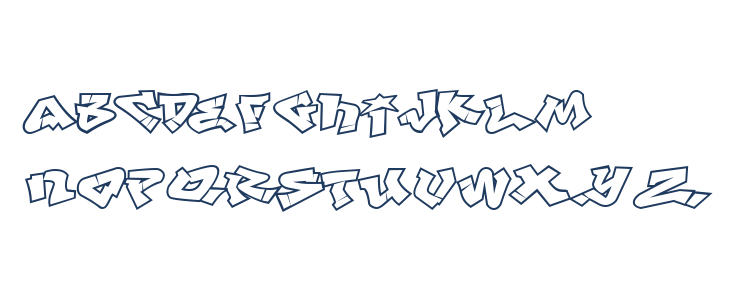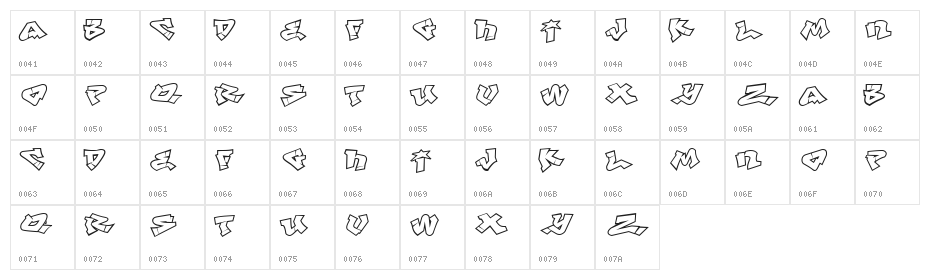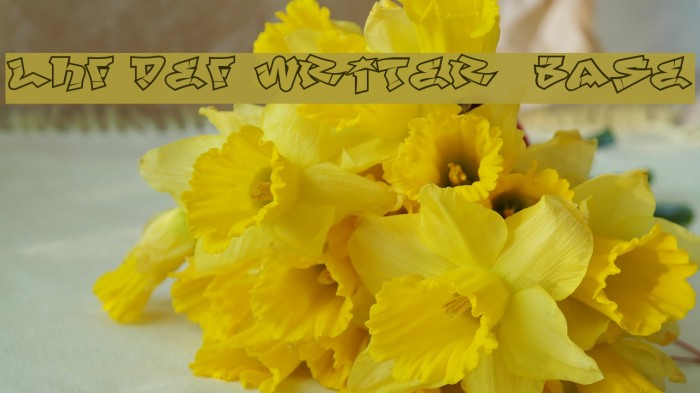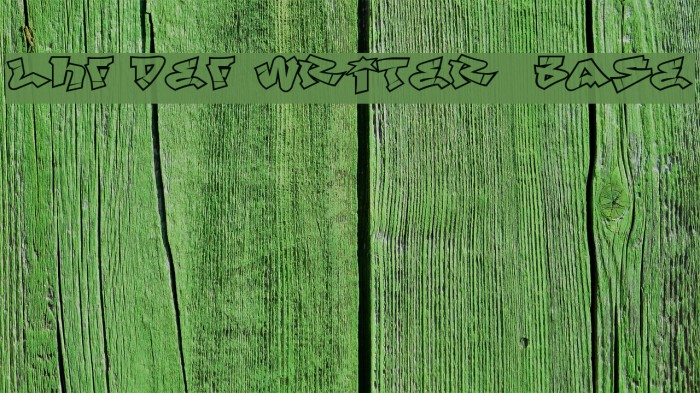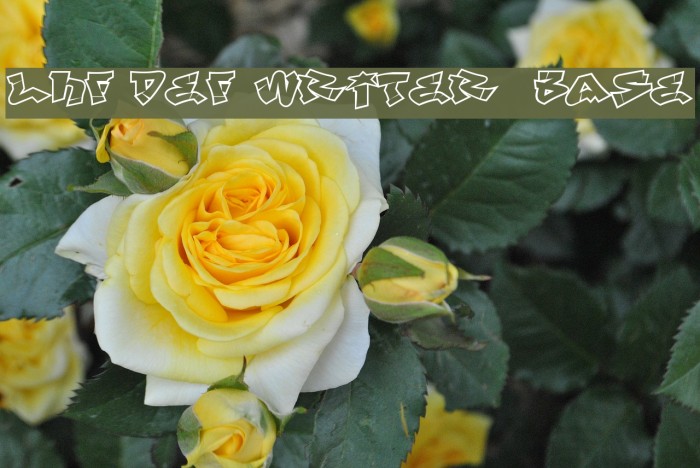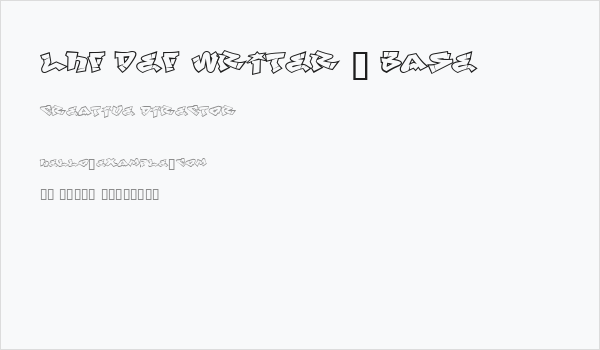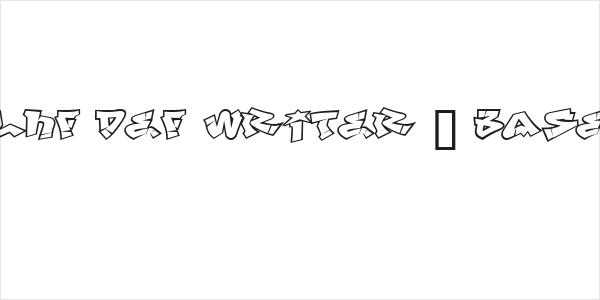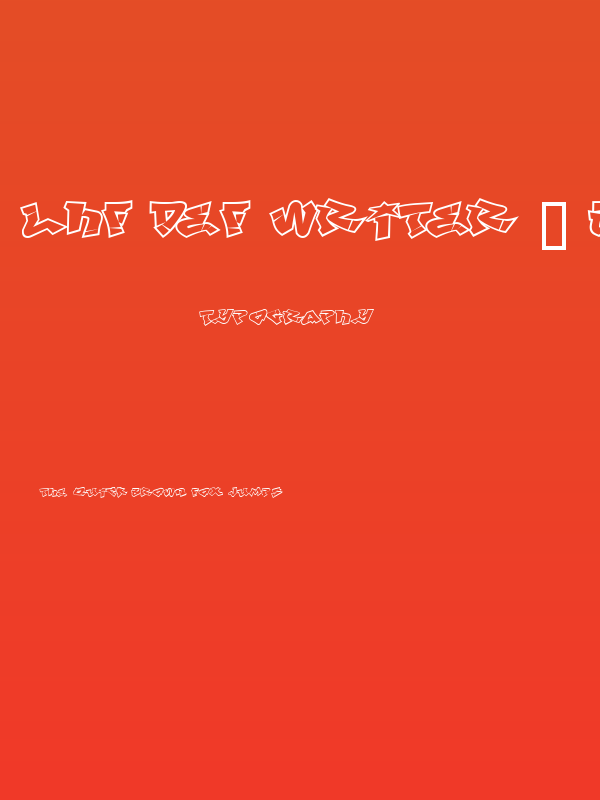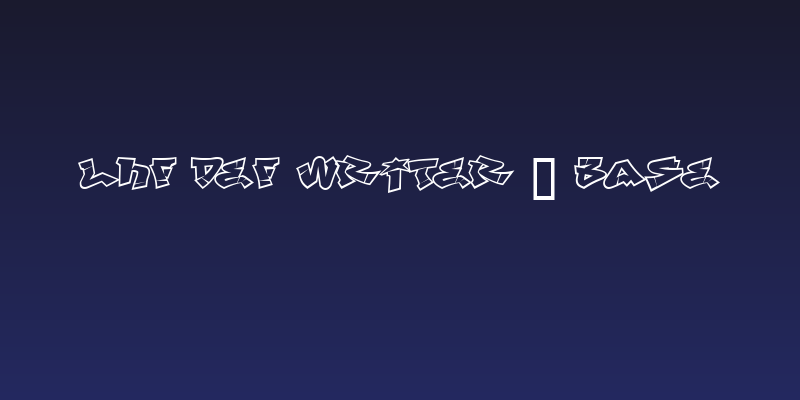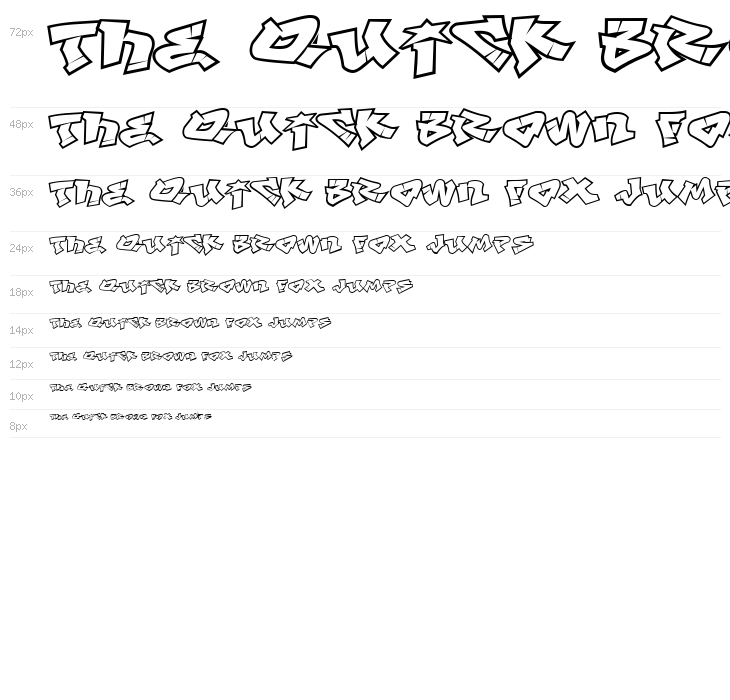
LHF Def Writer | BASE Font
LHF Def Writer | BASE Description
This font features a bold, graffiti-inspired style with angular, edgy letterforms that convey a sense of urban energy and creativity. The uppercase letters are characterized by sharp angles and dynamic lines, giving them a striking and rebellious appearance. The lowercase letters maintain the same edgy aesthetic, ensuring consistency across the typeface. The numbers and special characters are designed to match the bold and expressive style of the letters, making this font ideal for projects that require a strong visual impact. The overall design is both modern and playful, suitable for a variety of creative applications.
| Overall Style | Modern, Urban |
| Proposed Projects | Ideal for street art designs, urban-themed posters, music album covers, and creative branding projects. |